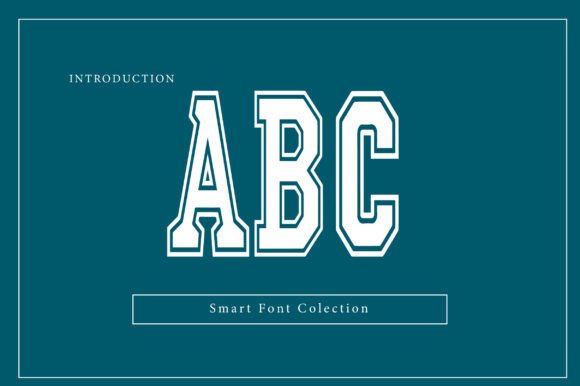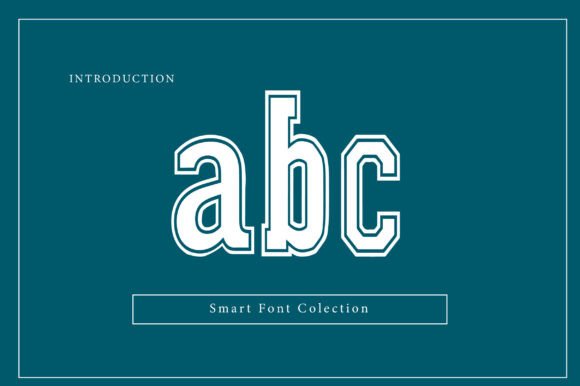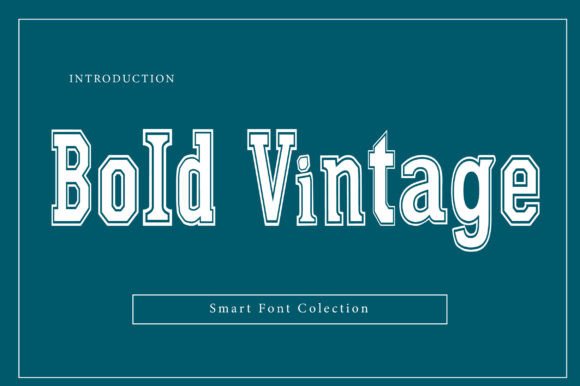
Introducing Bold Vintage Font: A Timeless Classic for Modern Designs
In the world of typography, few fonts evoke the nostalgia and charm of the old west like Bold Vintage. This powerful display typeface is inspired by classic retro and old western typography, bringing a bold and nostalgic visual style to any design project. With its thick strokes, decorative outlines, and strong letter structure, Bold Vintage is the perfect choice for designers and crafters looking to add a touch of vintage flair to their work.
The Inspiration Behind Bold Vintage
Bold Vintage draws inspiration from the classic typography of the old west, with its bold and rugged aesthetic. The font’s design is rooted in the rich history of western typography, where signs, posters, and logos needed to be eye-catching and durable to withstand the harsh conditions of the frontier. The result is a font that exudes a sense of strength, resilience, and timelessness.
Key Features of Bold Vintage Font
- Thick Strokes: Bold Vintage features thick, sturdy strokes that give the font its bold and rugged appearance.
- Decorative Outlines: The font’s decorative outlines add an extra layer of visual interest, making it perfect for headlines, logos, and other design elements.
- Strong Letter Structure: The font’s strong letter structure ensures excellent readability, even at larger sizes.
Use Cases for Bold Vintage Font
Bold Vintage is an incredibly versatile font that can be used in a wide range of design projects, including:
- Headlines and Logos: The font’s bold and eye-catching design makes it perfect for headlines and logos that need to stand out.
- Posters and Packaging: Bold Vintage is ideal for posters, packaging, and other marketing materials that require a strong visual impact.
- Apparel and Badges: The font’s rugged aesthetic makes it a great choice for apparel, badges, and other wearable designs.
- Branding Projects: Bold Vintage is perfect for branding projects that require a timeless, classic feel.
The Benefits of Using Bold Vintage Font
So why choose Bold Vintage for your design projects? Here are just a few benefits of using this powerful display typeface:
- Timeless Aesthetic: Bold Vintage has a timeless aesthetic that won’t go out of style anytime soon.
- Excellent Readability: The font’s strong letter structure ensures excellent readability, even at larger sizes.
- Strong Visual Impact: Bold Vintage delivers a strong visual impact that will grab the attention of your audience.
- Versatility: The font’s versatility makes it suitable for a wide range of design projects, from digital designs to print materials.
Tips for Using Bold Vintage Font
Here are a few tips for getting the most out of Bold Vintage:
- Use it boldly: Don’t be afraid to use Bold Vintage in bold and eye-catching ways, such as in headlines and logos.
- Experiment with colors: Try pairing Bold Vintage with different colors to create a unique and eye-catching design.
- Mix and match: Combine Bold Vintage with other fonts to create a unique and visually interesting design.
Bold Vintage is a powerful display typeface that brings a bold and nostalgic visual style to any design project. With its thick strokes, decorative outlines, and strong letter structure, this font is perfect for designers and crafters looking to add a touch of vintage flair to their work. Whether you’re creating headlines, logos, posters, or branding projects, Bold Vintage is the perfect choice for adding a timeless, classic feel to your designs.